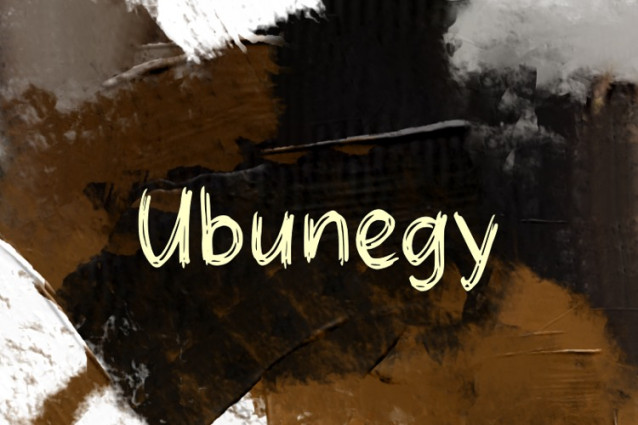
Ubunegy Font
Ubunegy Font, is a chunky, comic, and cartoon display font. With its neat and joyful personality, this font will enhance any project you wish to create!